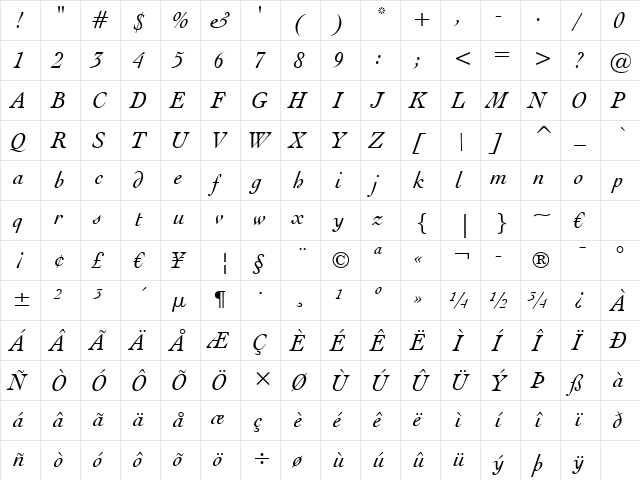
EngrvOs205 BT Italic
Design Context for EngrvOs205 BT Typeface
EngrvOs205 BT takes a measured approach to typography — its balanced proportions and neutral character make it a reliable workhorse for both digital and print work. The dynamic lean of this cut emphasises speed and emphasis in any layout.
Pro Tip: Try EngrvOs205 BT for annotation and caption copy alongside an upright companion — the contrast in angle creates a dynamic but ordered typographic system.